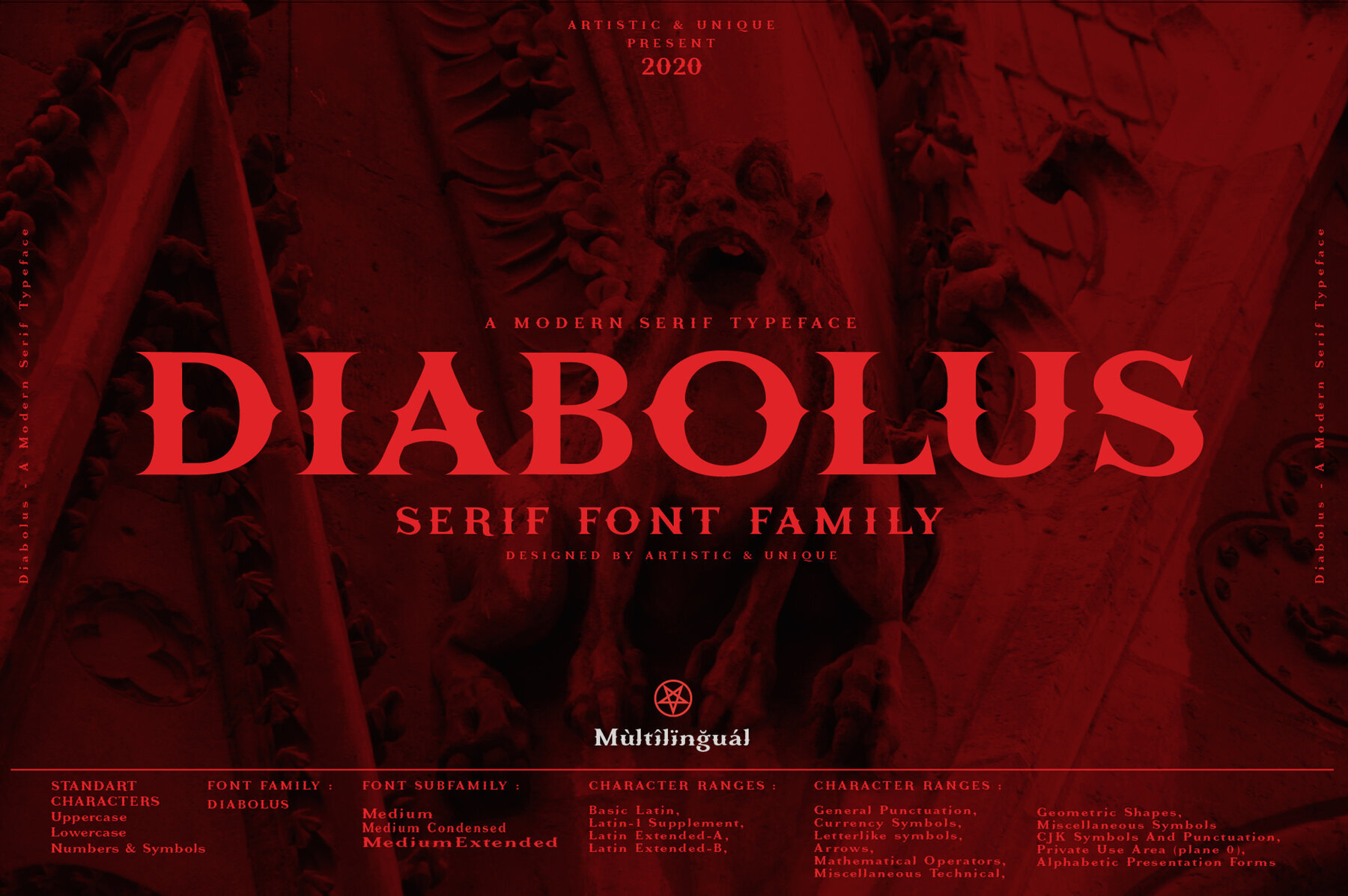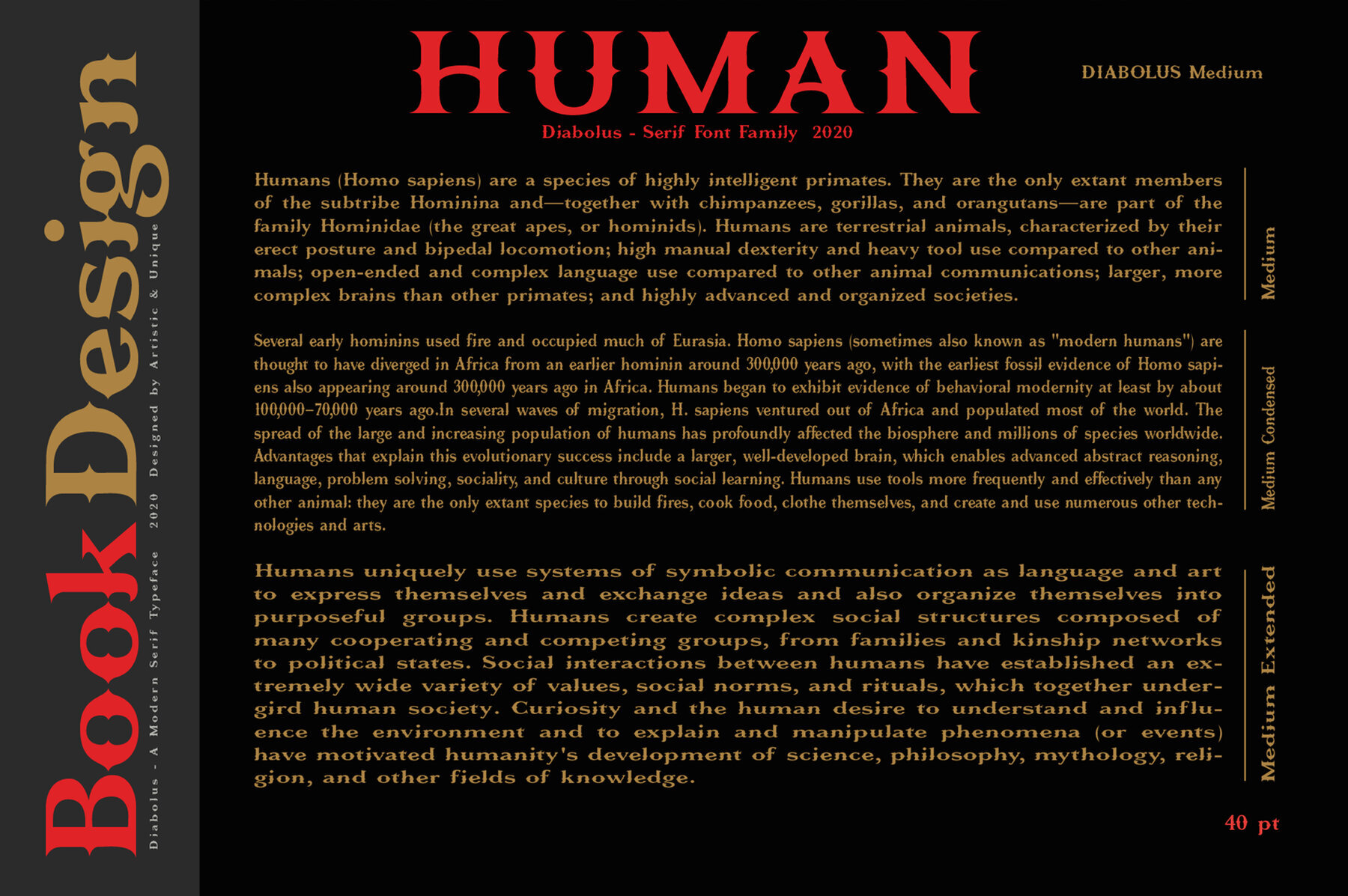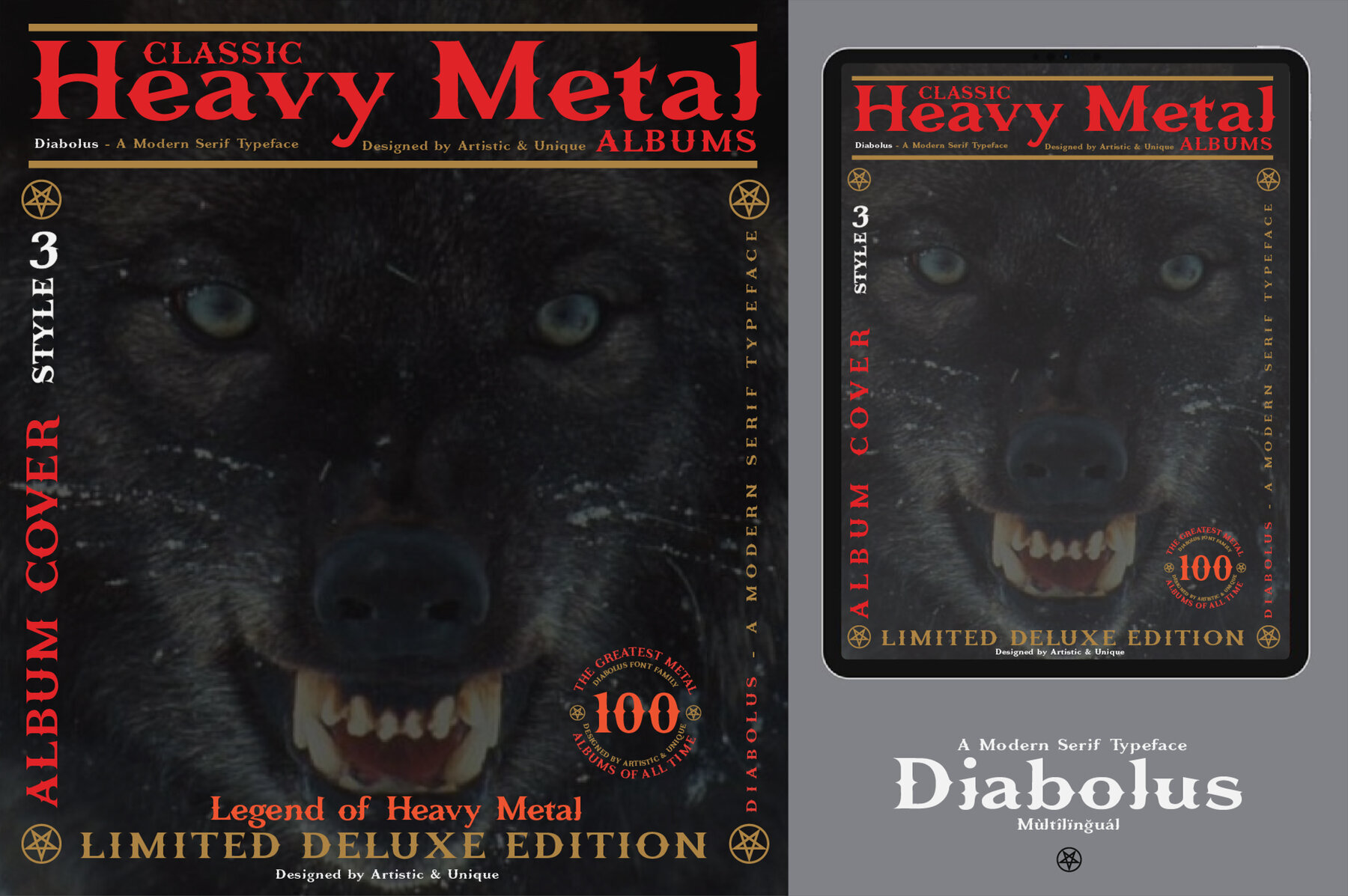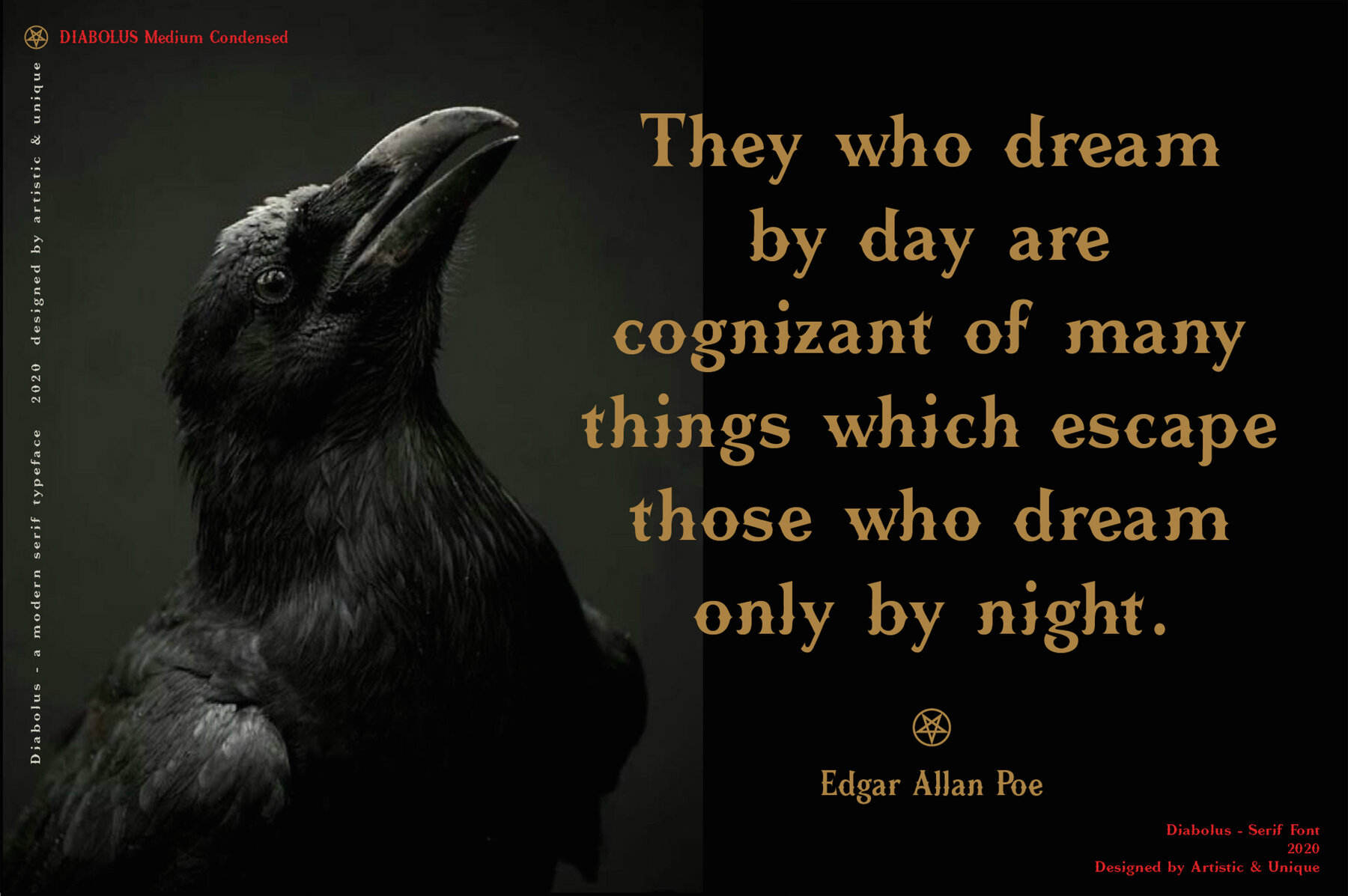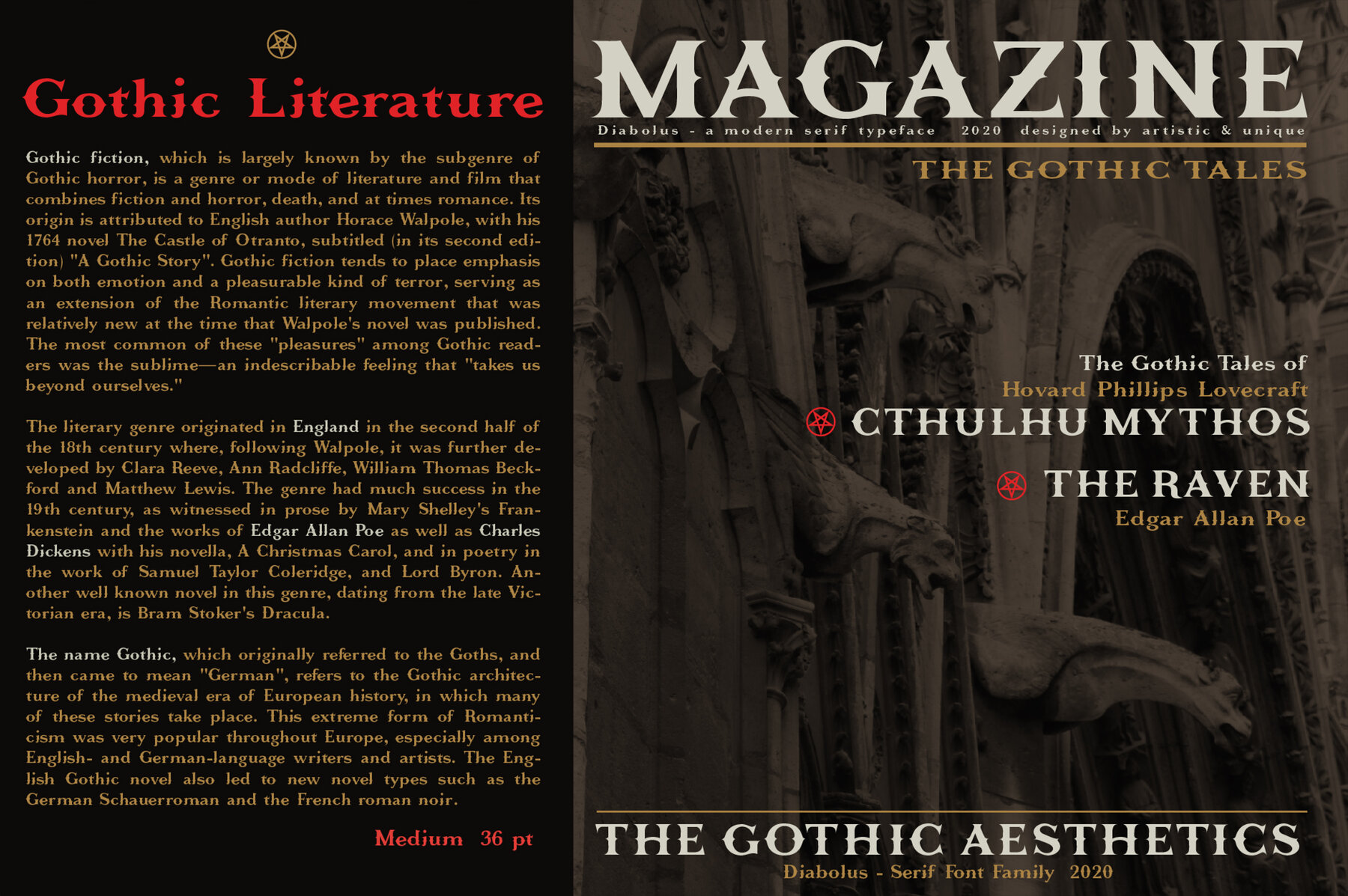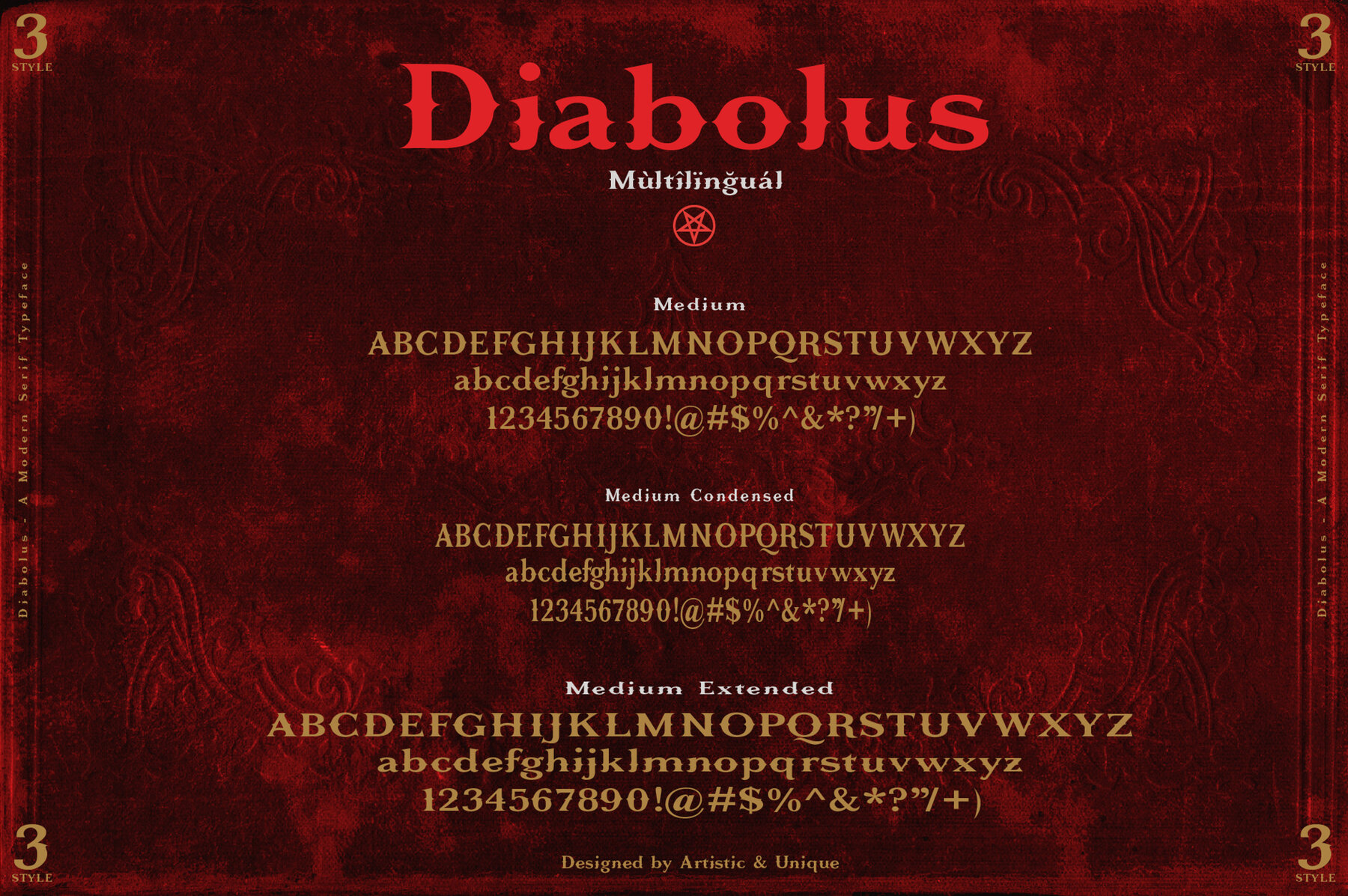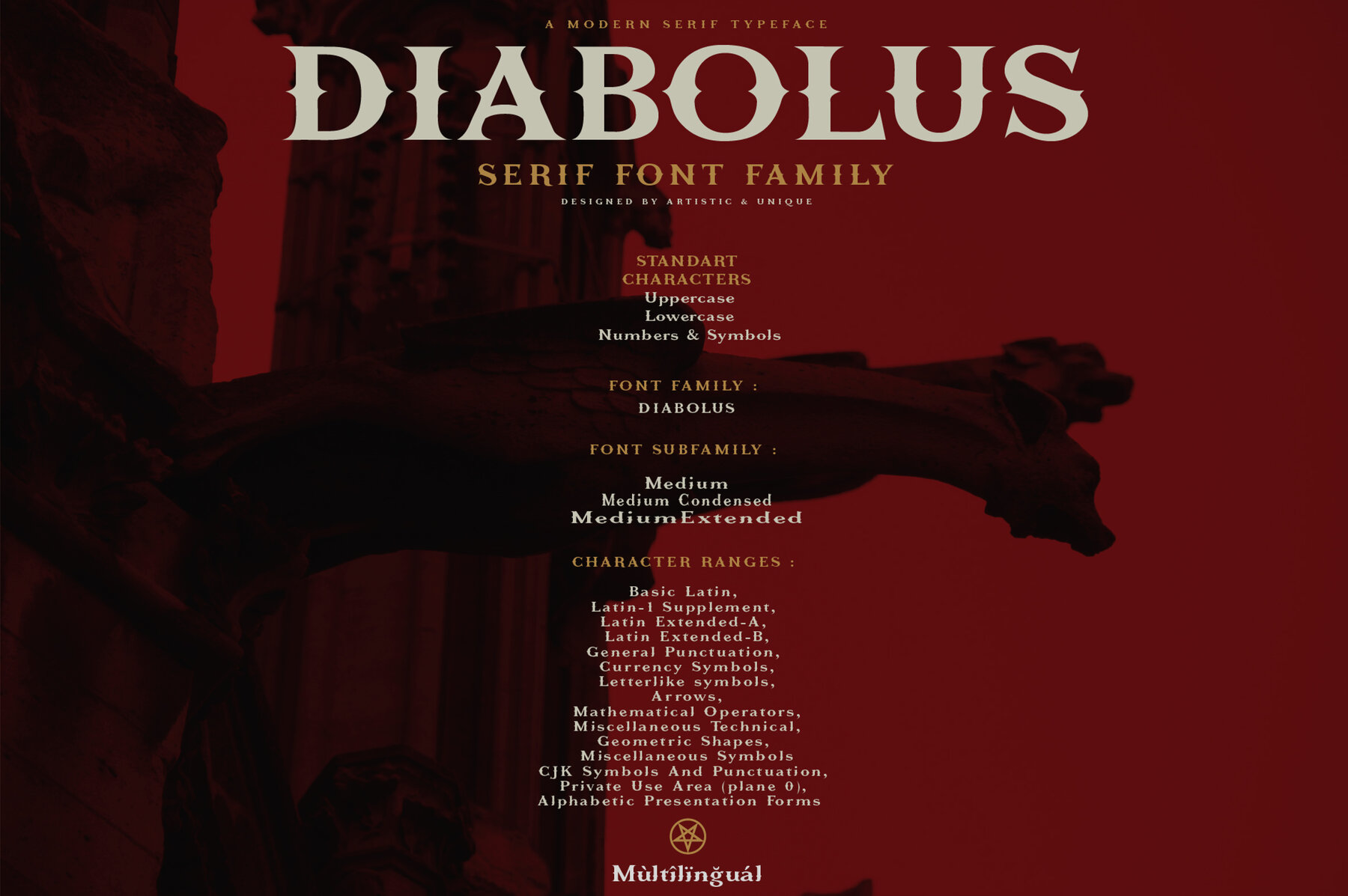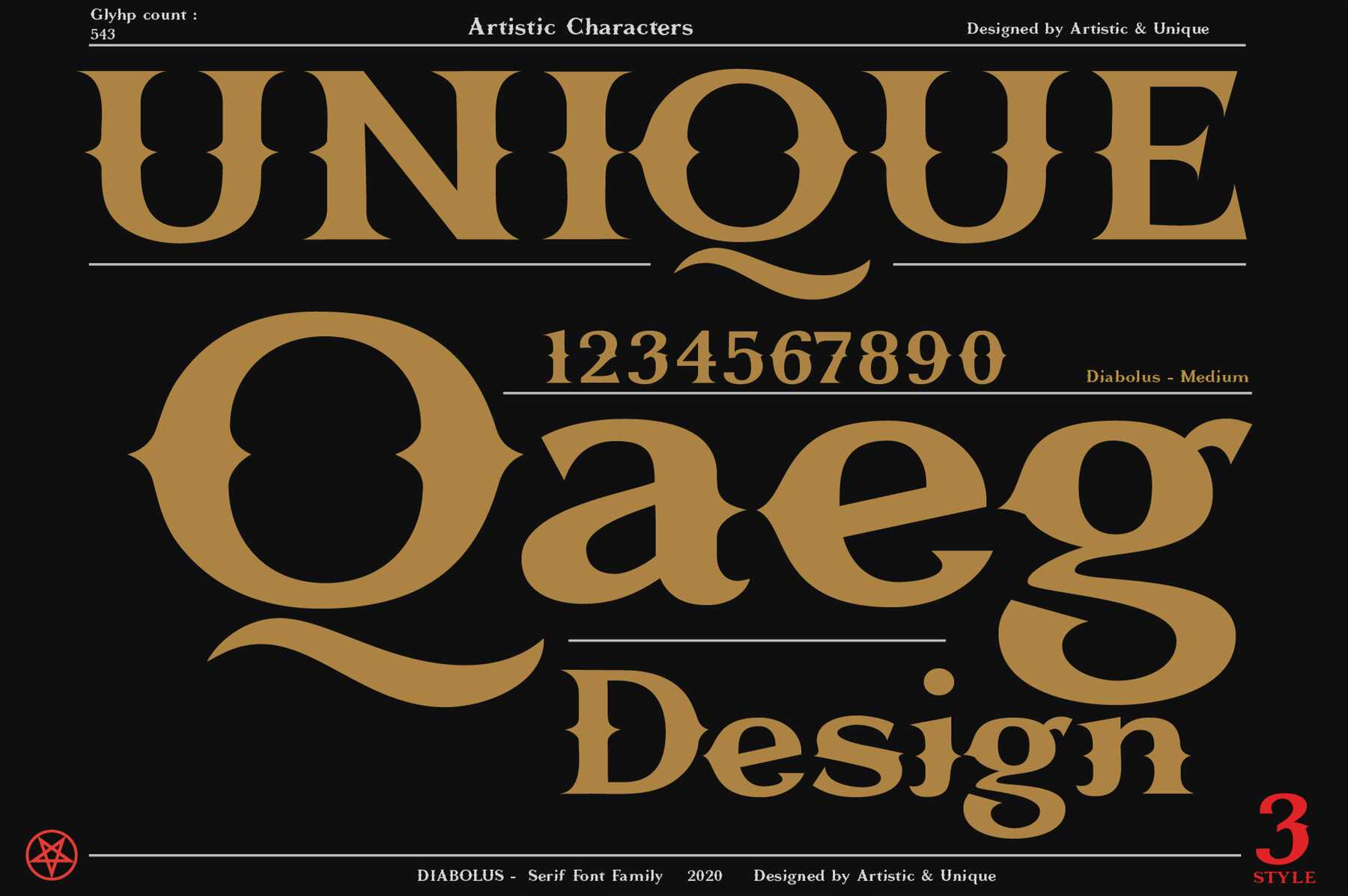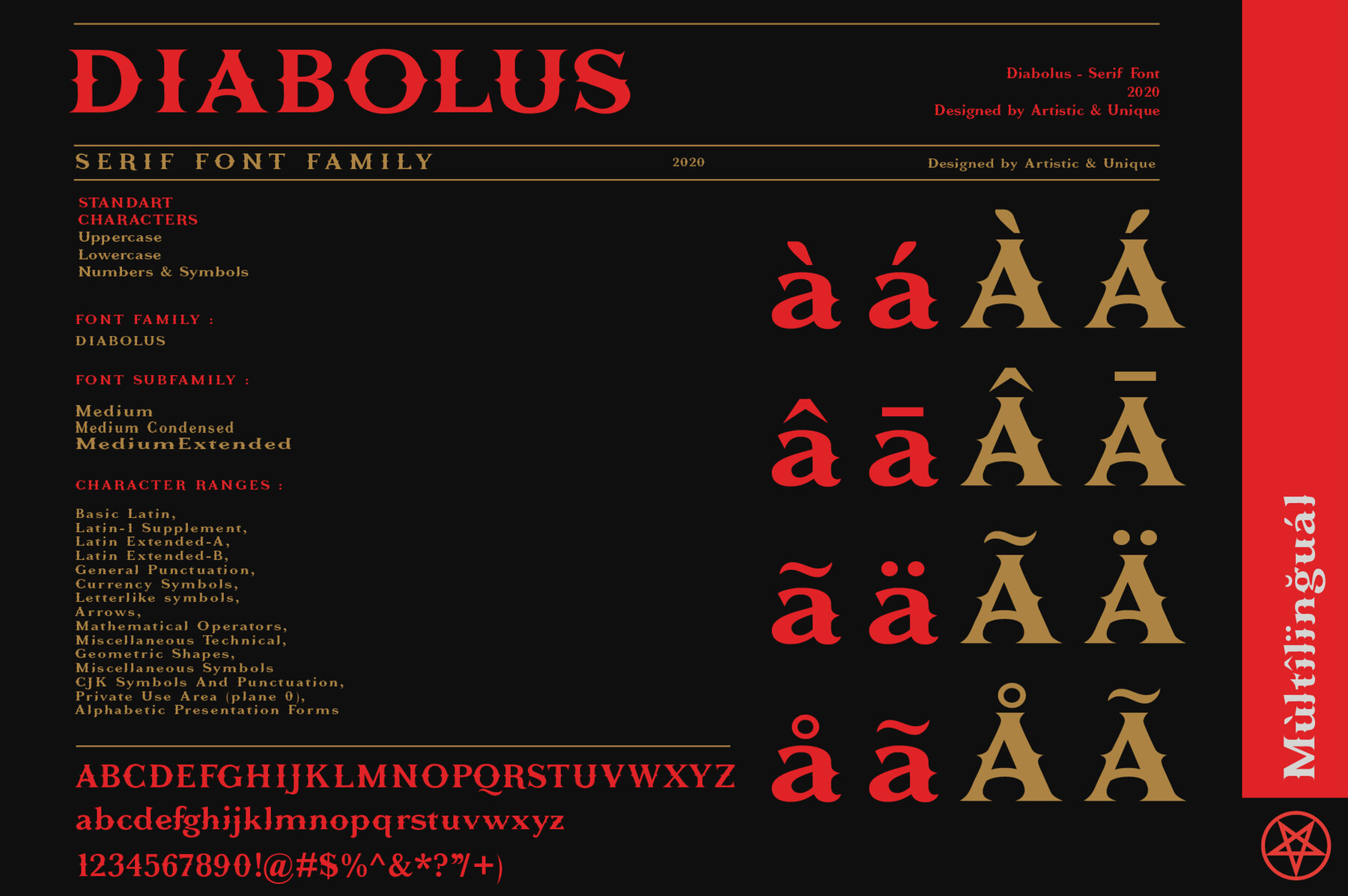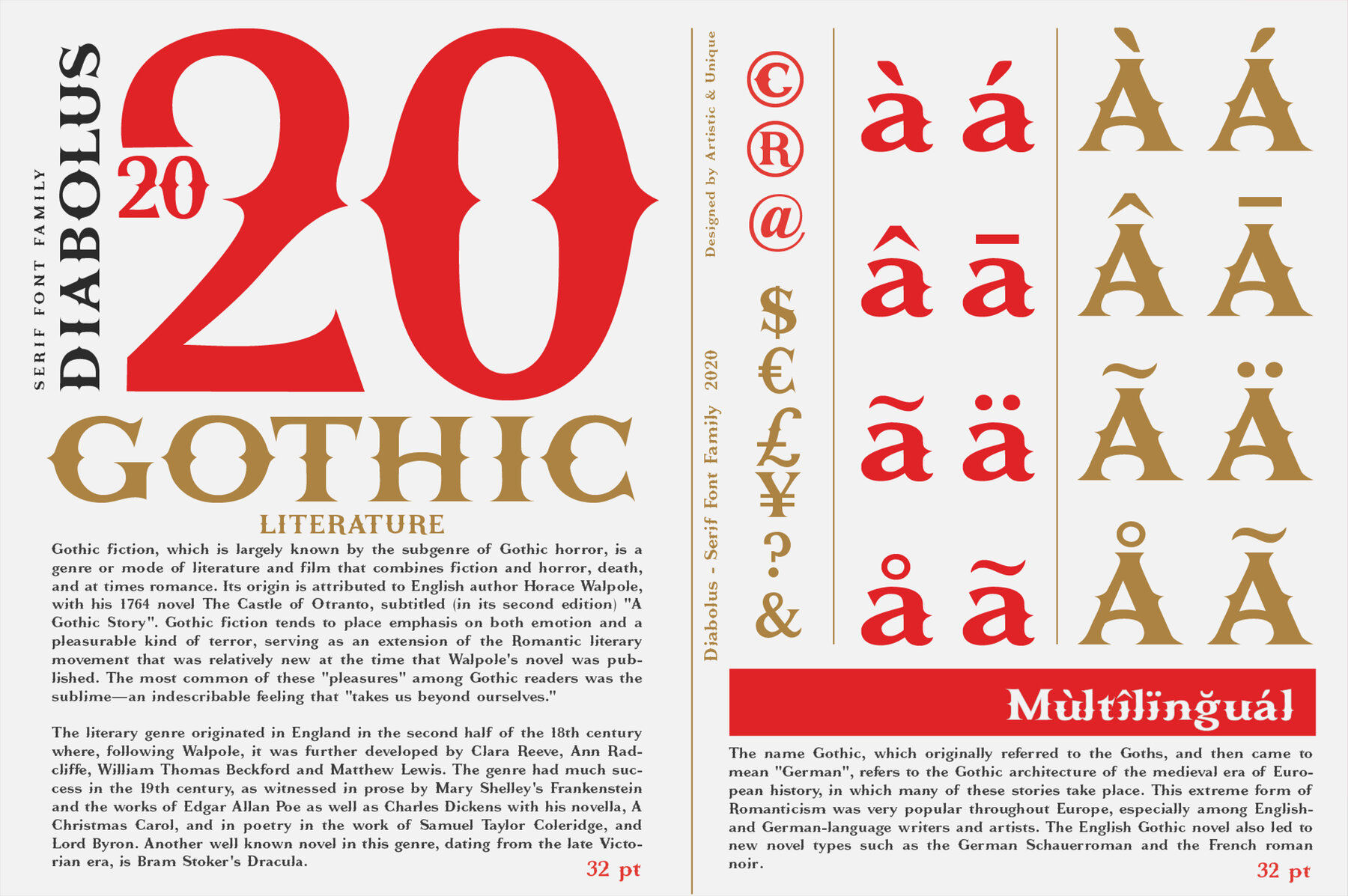
DIABOLUS Font
Discover the Diabolus font family, a compelling blend of old-world Gothic charm and modern serif aesthetics. This versatile serif font family offers three styles and supports multilingual usage, making it ideal for a wide range of design projects. Whether crafting body text or impactful headlines, Diabolus provides an elegant and timeless touch. With Diabolus, you can effortlessly transition from classic to contemporary bold designs, offering your projects a unique, stylistic edge.Diabolus: A Versatile Gothic Serif Font
Perfect for Multiple Uses